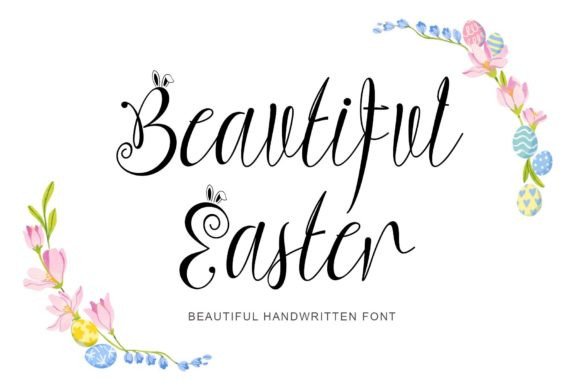
Buckle up for an egg-cellent adventure with "Beautiful Easter," the font that captures the whimsical spirit of the springtime celebration. This enchanting script font is not just a collection of letters; it's a canvas for your creativity, waiting to be adorned with your heartfelt messages and designs.
Picture this: Easter eggs adorned with delicate calligraphy, greeting cards that transport you to a whimsical wonderland, and T-shirts that radiate the joy of the season. With "Beautiful Easter," every stroke of your keyboard transforms into a stroke of artistic brilliance.
This font is more than just a tool; it's an invitation to let your imagination run wild and create designs that leave a lasting impression. Whether you're a seasoned designer or just starting your creative journey, "Beautiful Easter" is your gateway to a world of endless possibilities.
So, embrace the magic of Easter and let "Beautiful Easter" be your creative companion. Its playful bunny ears in uppercase add a touch of whimsy that perfectly complements the season. It's the perfect font for making stickers, adding a personal touch to your Easter decorations, or creating heartfelt messages for your loved ones.
Don't miss this opportunity to add a touch of enchantment to your creative endeavors. "Beautiful Easter" is the perfect font for capturing the spirit of the season and spreading joy wherever it goes. Unleash your creativity and let "Beautiful Easter" be your guide to a world of delightful designs.
So, whether you're designing for Easter, spring, weddings, or just want to add a touch of whimsy to your projects, "Beautiful Easter" is the font for you. Let your imagination soar and create designs that are as unique and charming as the season itself.